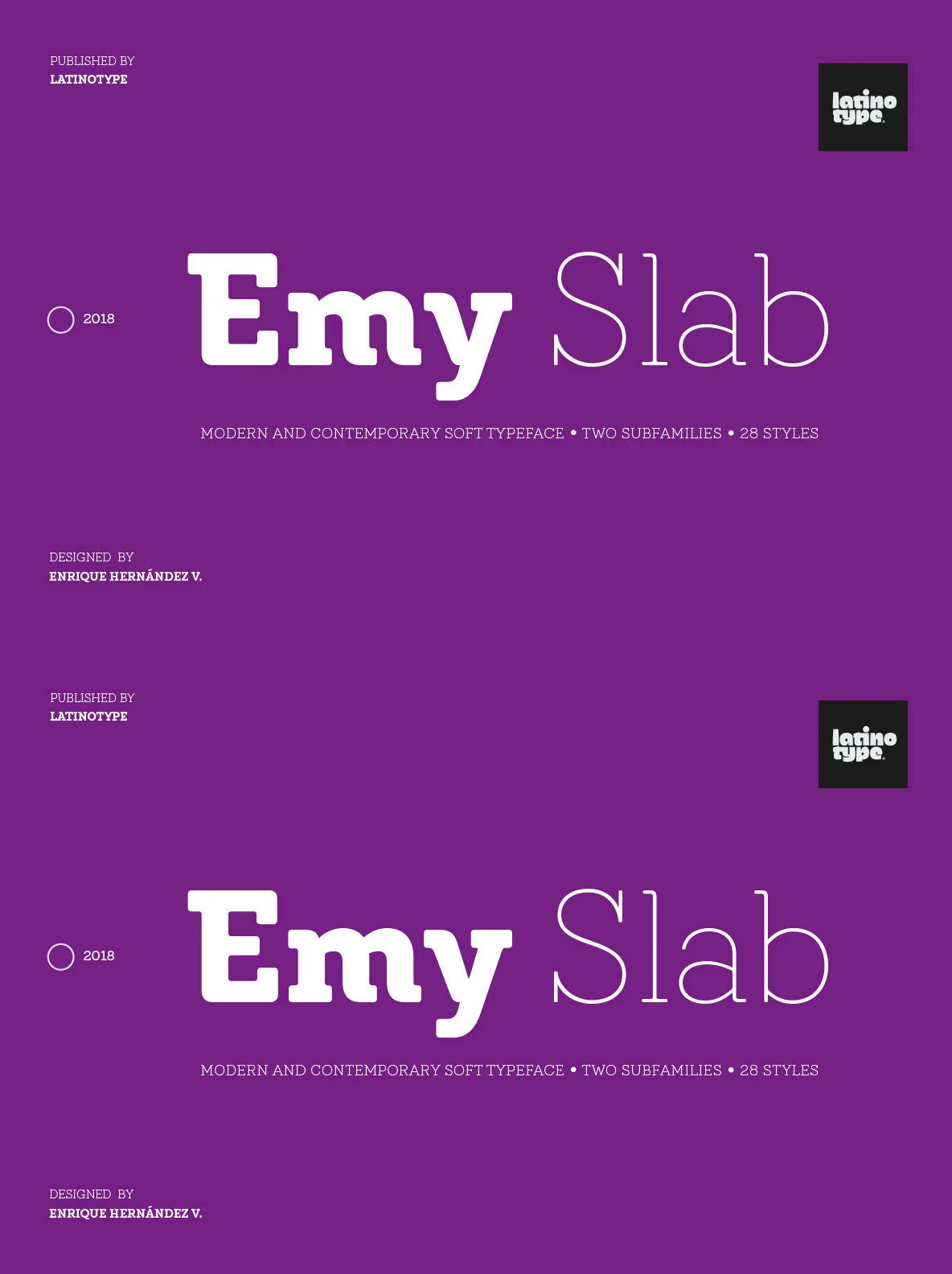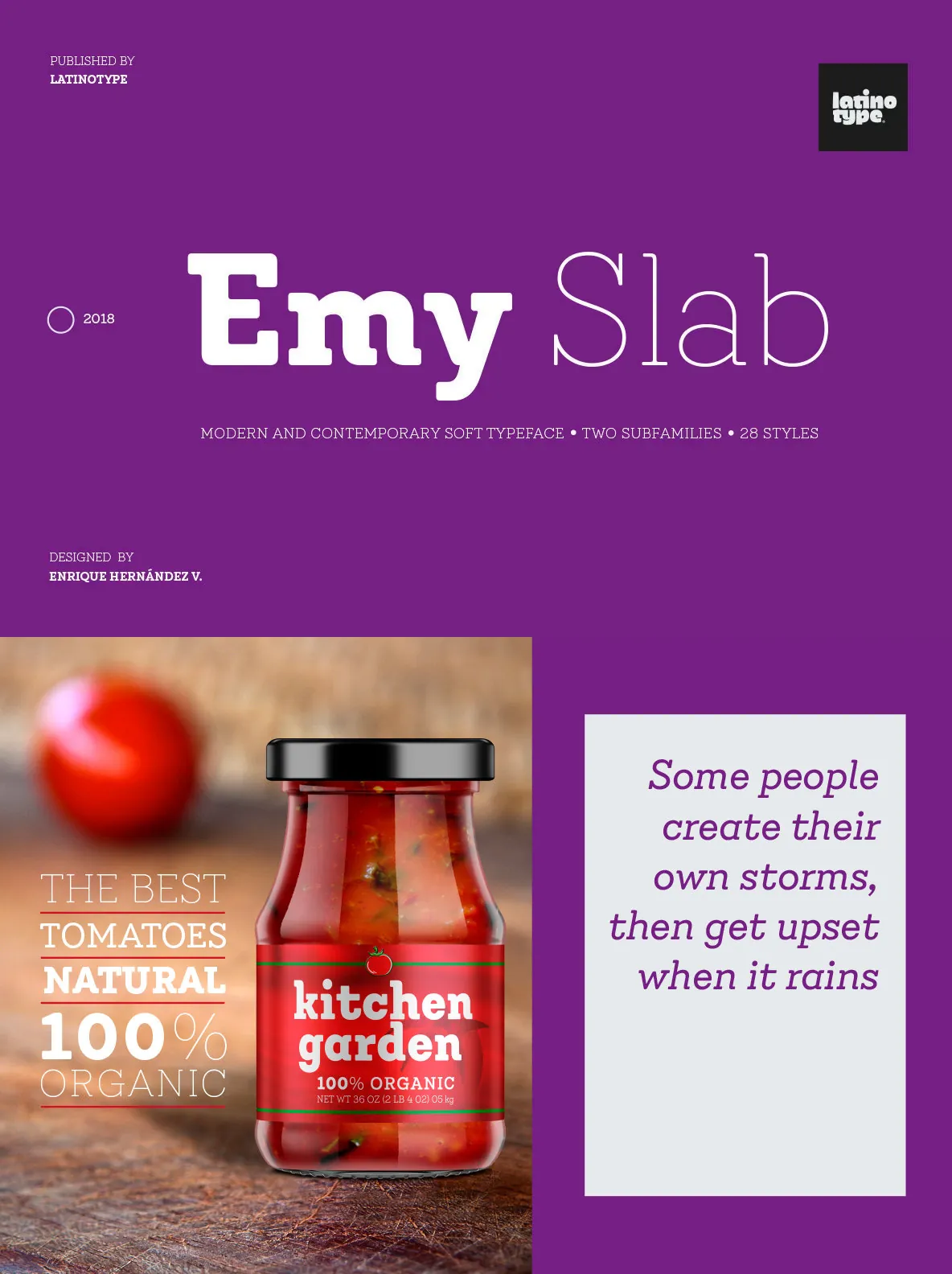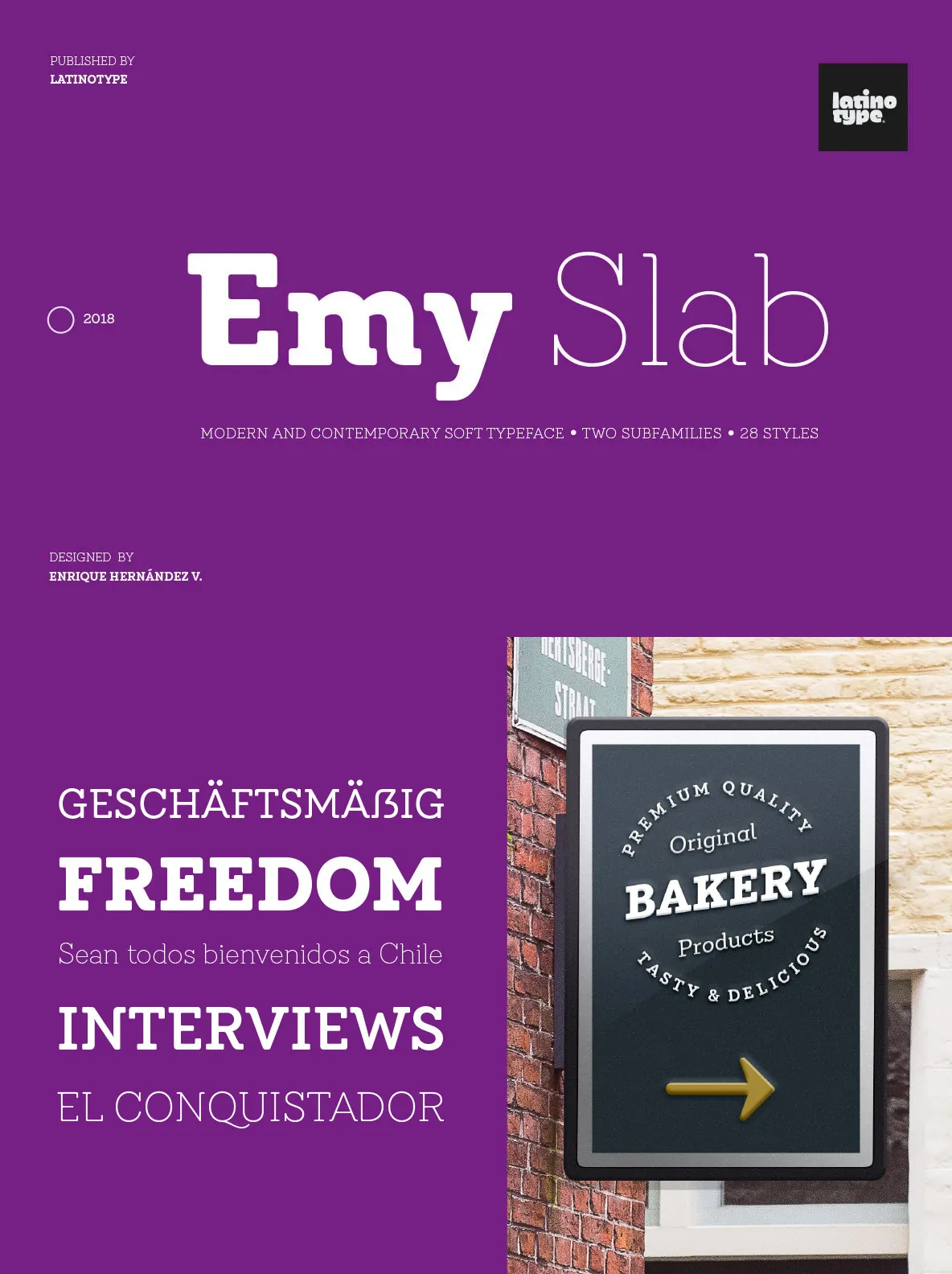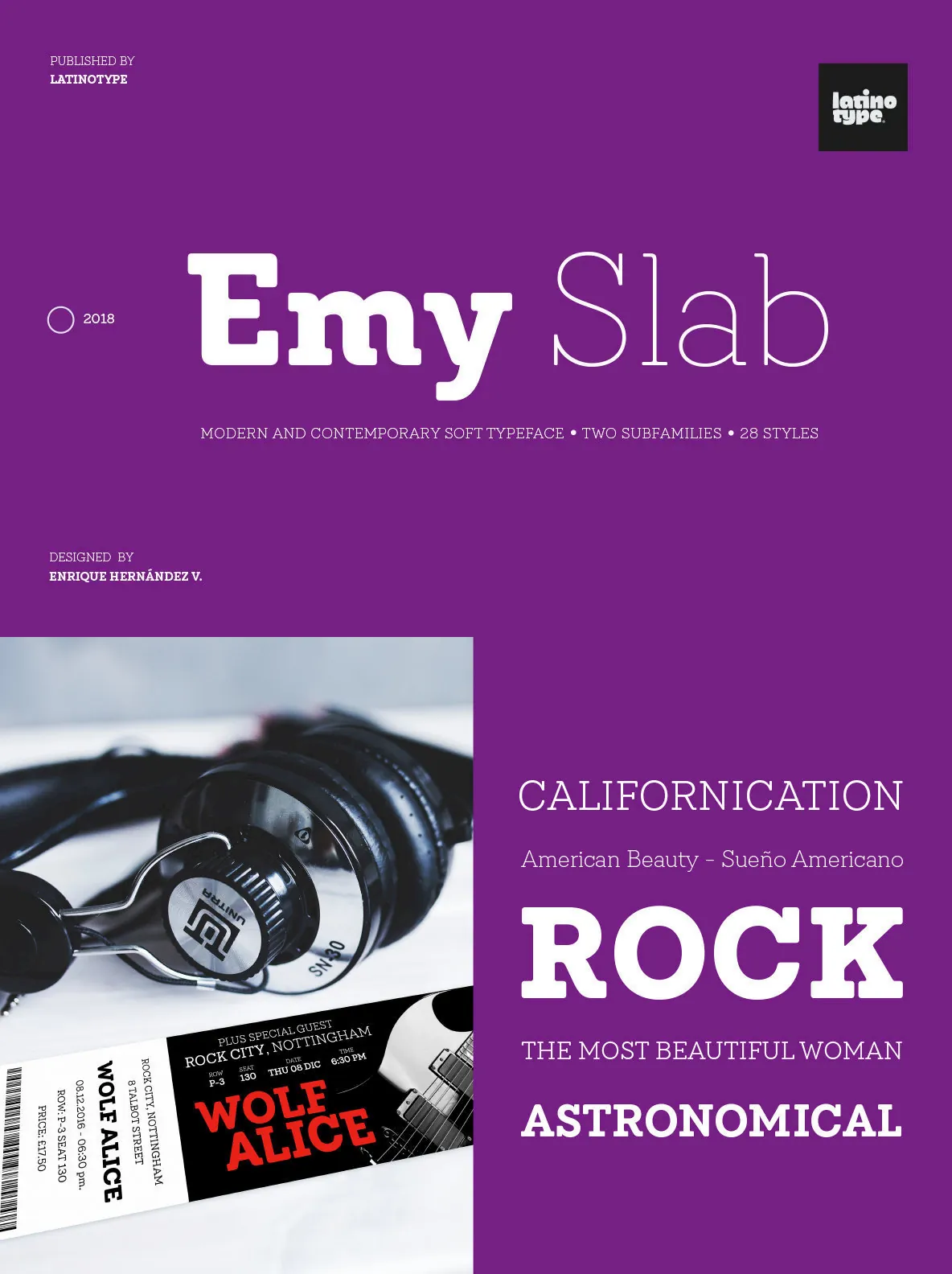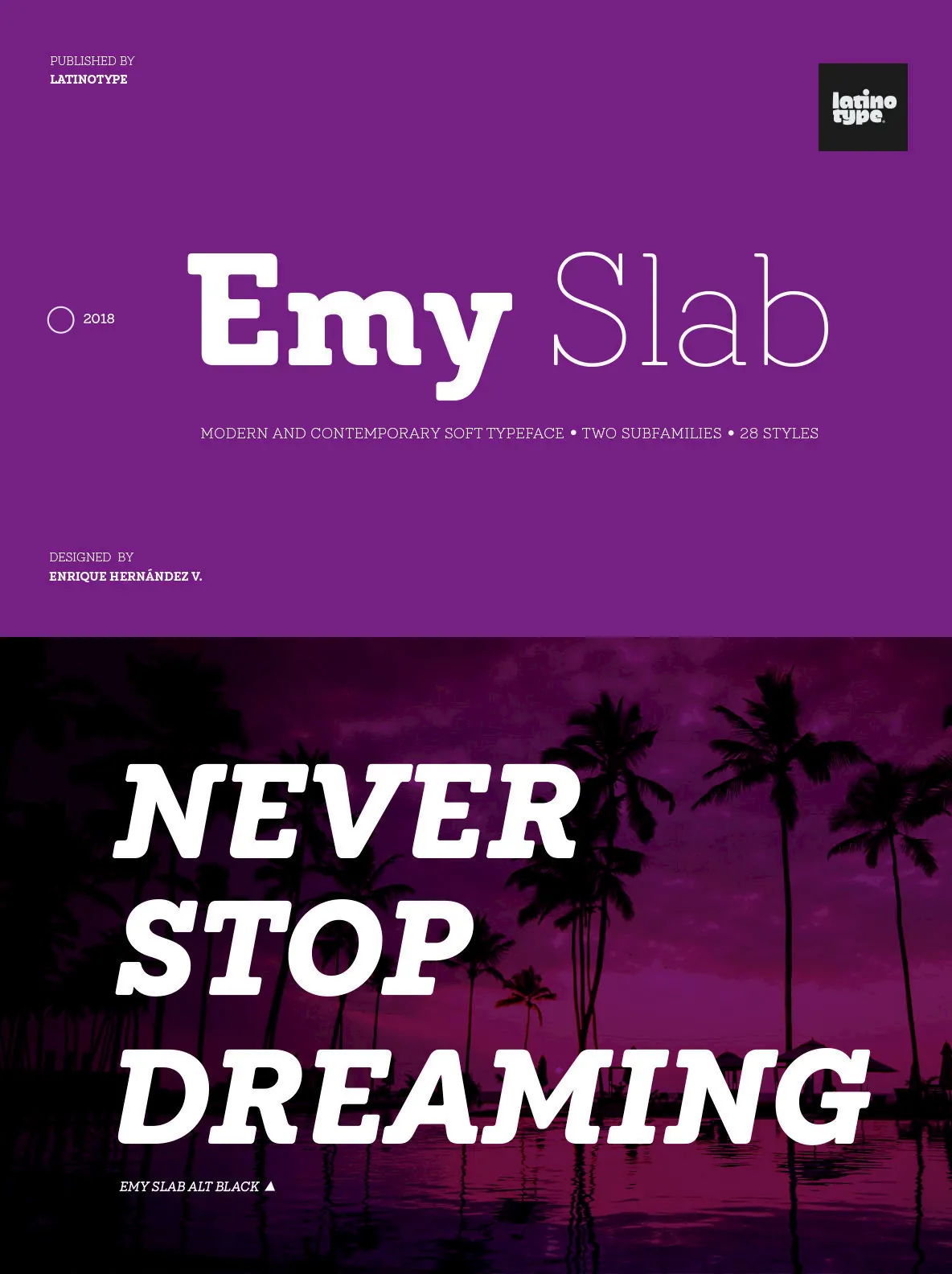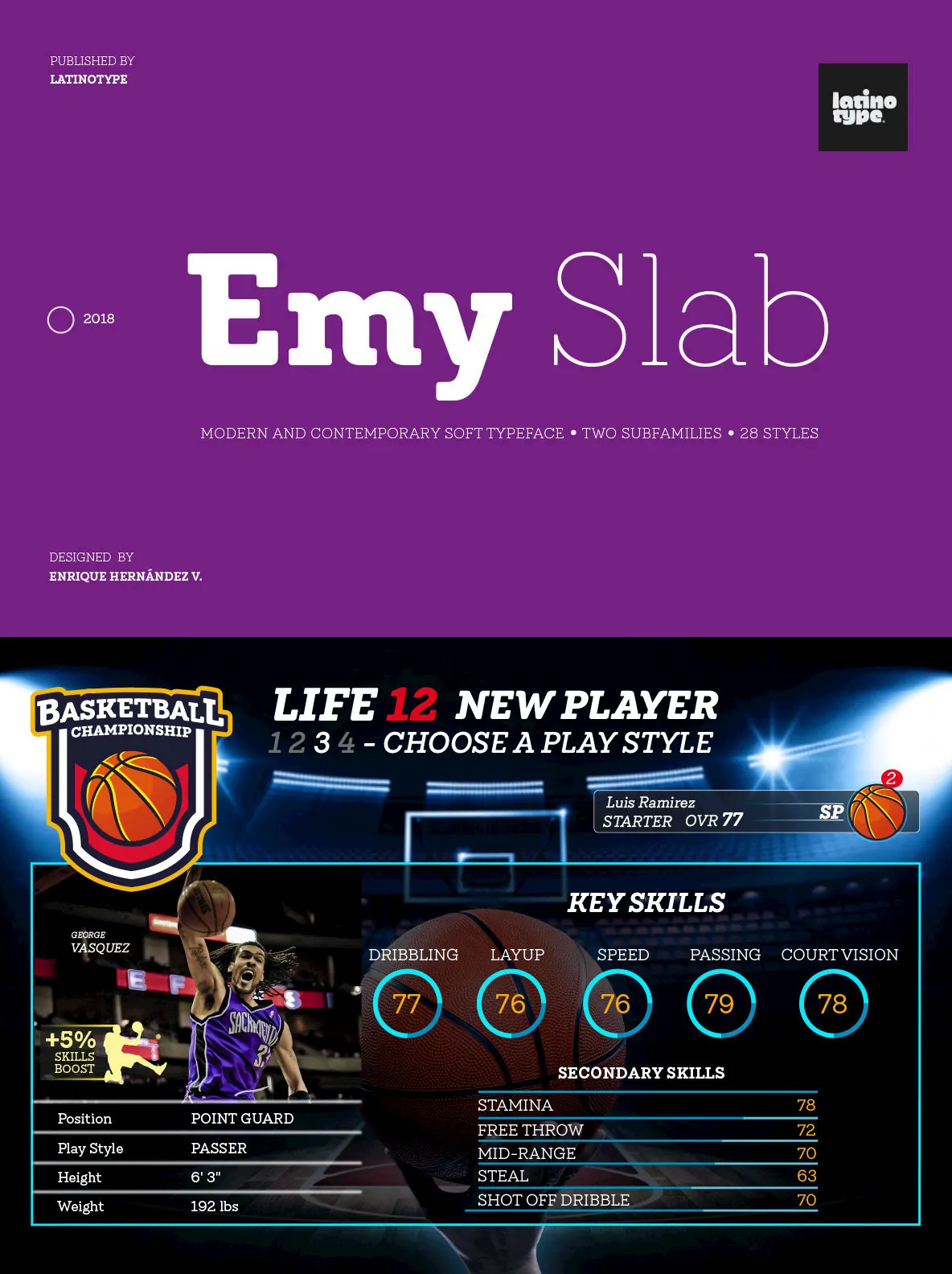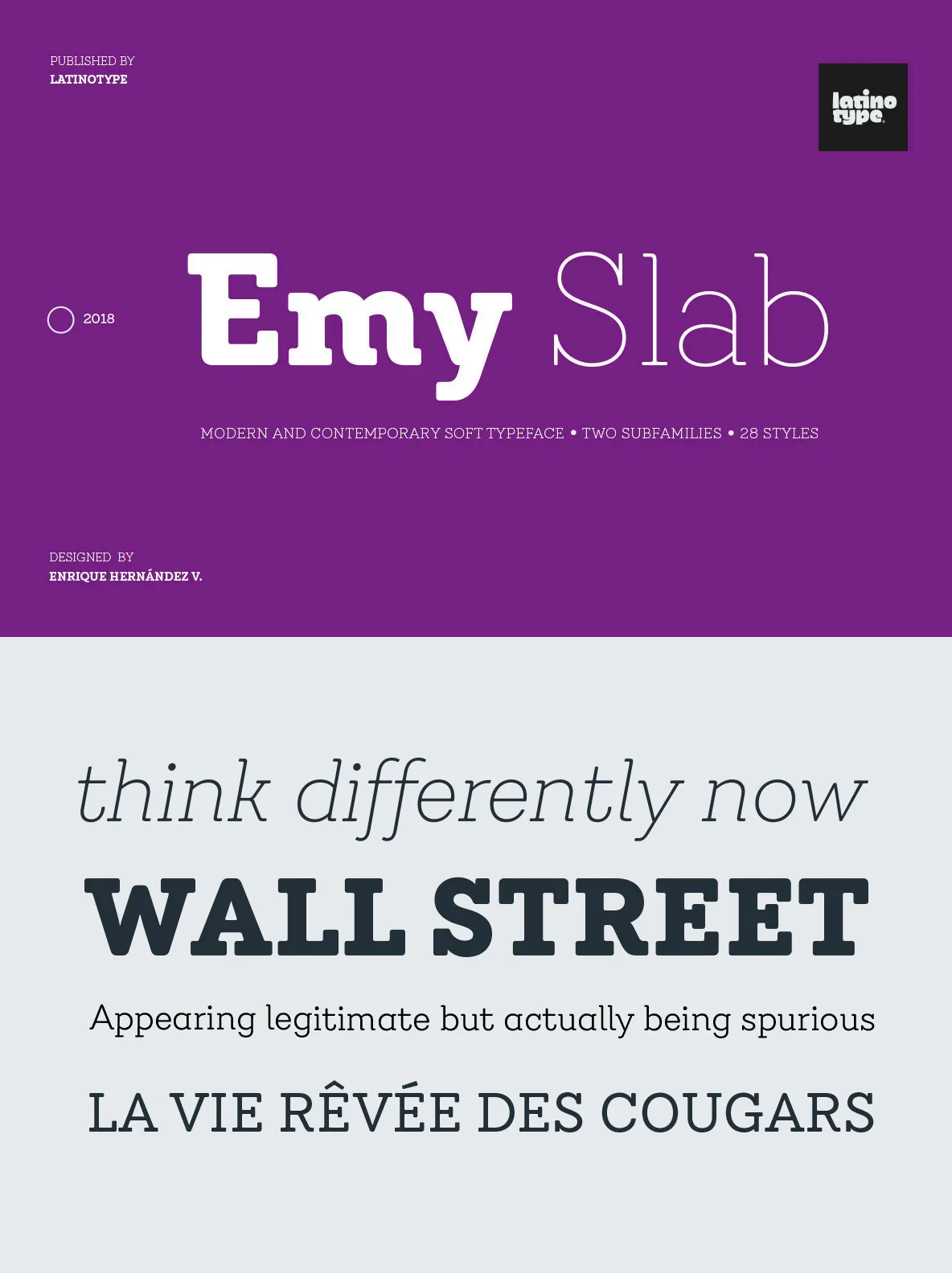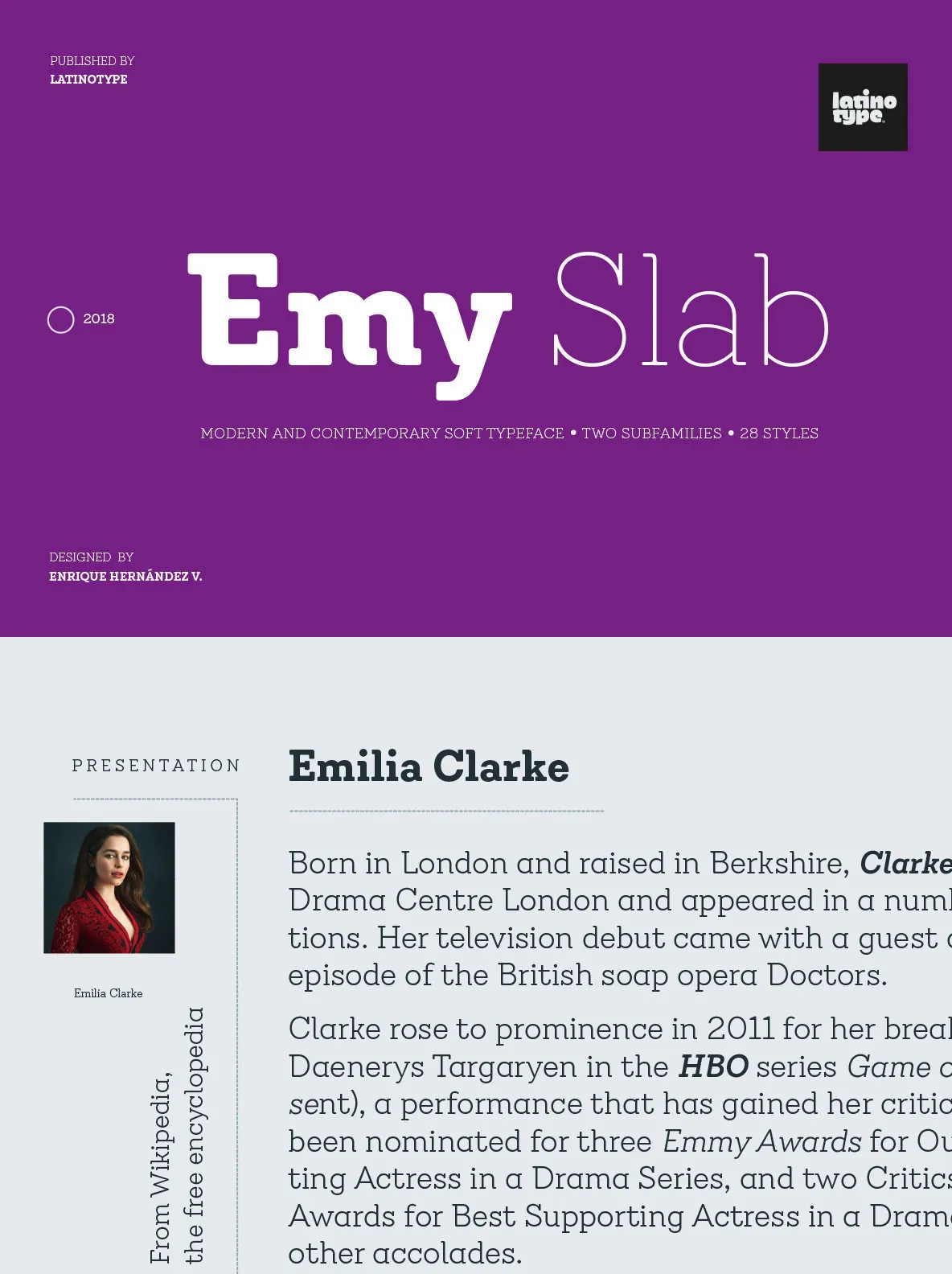
Emy Slab Font
Emy Slab Serif Typeface
Emy Slab is a contemporary slab serif inspired by the timeless structure of Egyptian typefaces. Its soft terminal details set it apart, bringing a subtle warmth and modern approach to classic forms. Designed to balance tradition and versatility, Emy Slab fits seamlessly into editorial layouts, branding projects, and digital environments.
Two distinct subfamilies for design versatility
Seven weights per subfamily, from Thin to Black
Matching italics for a cohesive typographic system
With its extensive range of styles and approachable character, Emy Slab offers reliable performance for both display and body text. This family provides creative flexibility while remaining grounded in clear, readable letterforms.